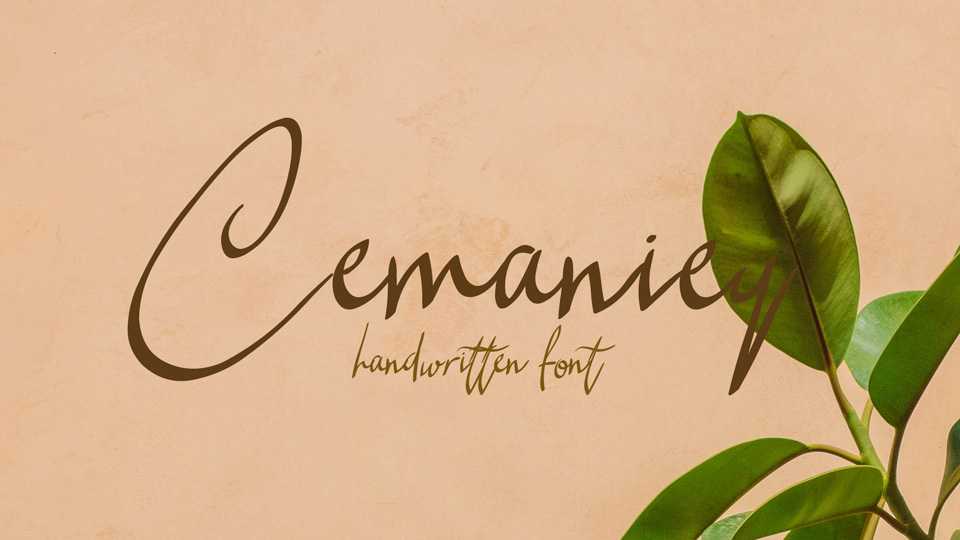
Download Cemaniey font, a casual style handwritten script. This font is suitable for cards, letters, crafts, quotes, social media and others.
Designer: 160 Studio